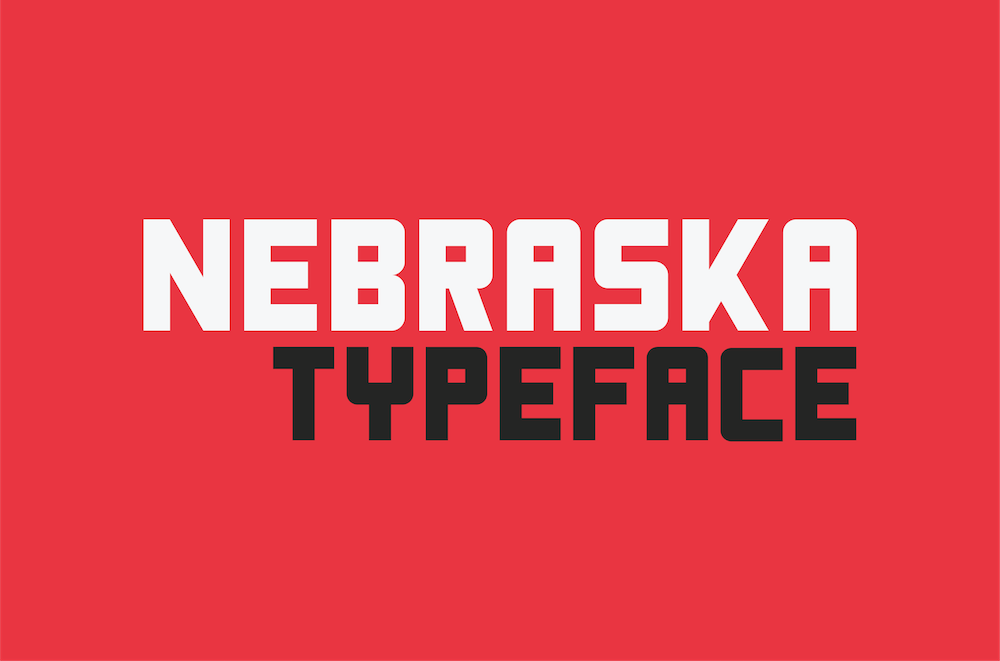
NEBRASKA TYPEFACE
Nebraska is a typeface inspired by Aaron Draplin’s DDC Hardware and the State of Nebraska. What started out as a from scratch alteration of DDC Hardware’s middle bar and adding lowercase glyphs ended up becoming an entire family. Nebraska has five weights, upper and lowercase letters, numbers, and all standard symbols.